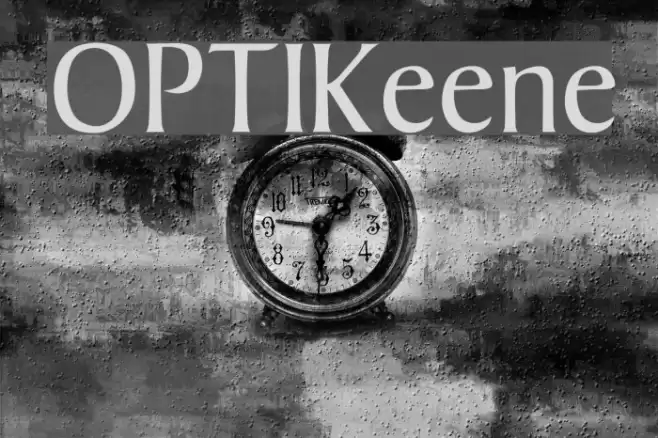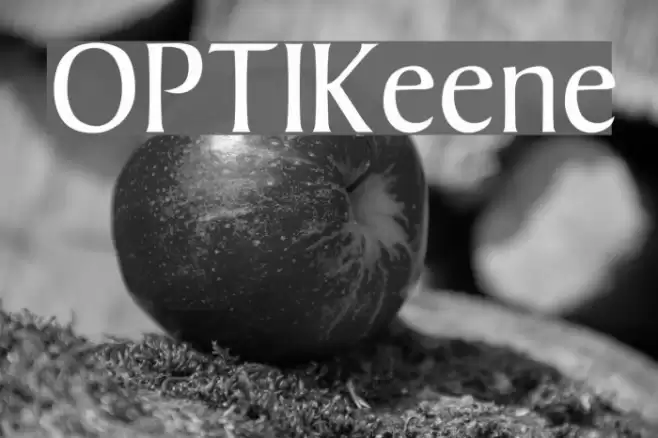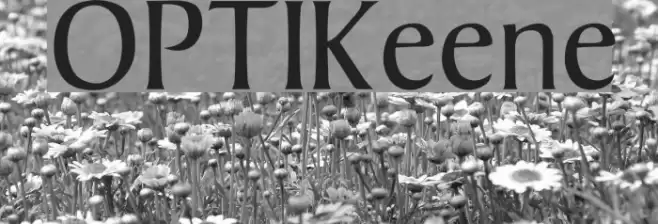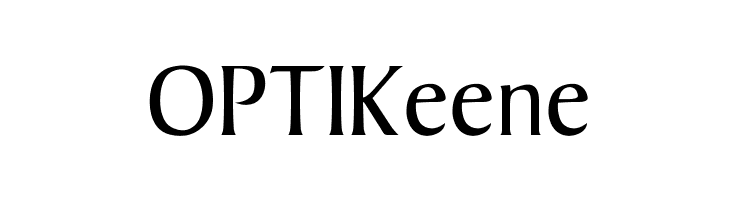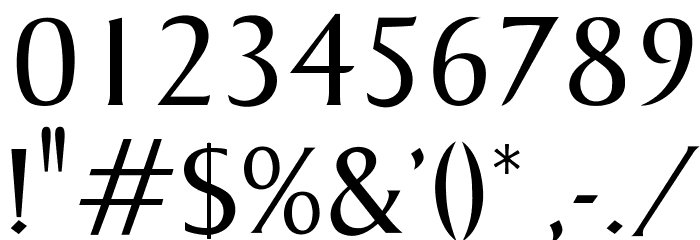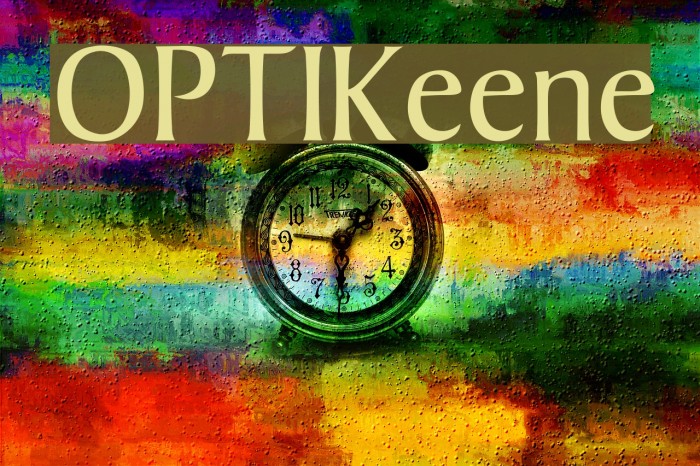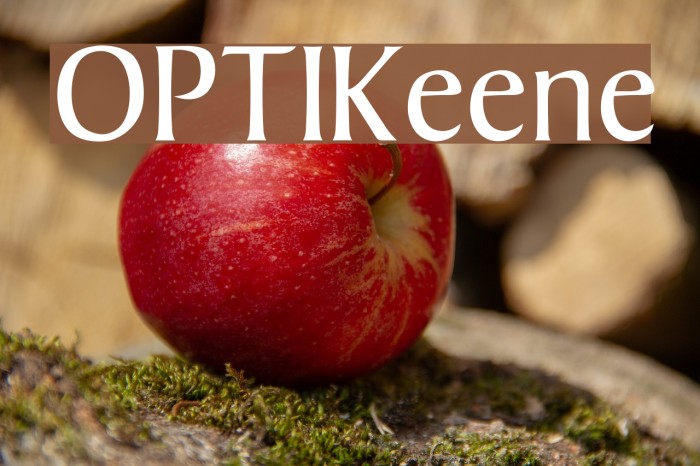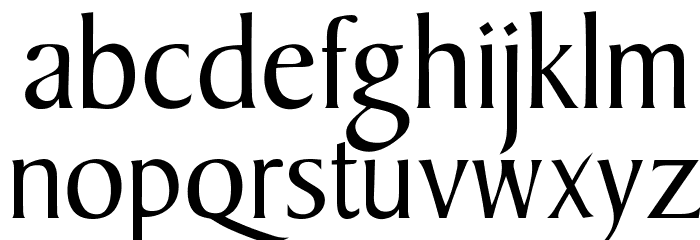
OPTIKeene Font
OPTIKeene Description
This font features a classic serif style with elegant and slightly curved strokes, giving it a sophisticated and timeless appearance. The uppercase letters are bold and commanding, while the lowercase letters maintain a graceful flow. The numerals are distinct and clear, making them suitable for various applications. The special characters are well-designed, complementing the overall aesthetic. This font's balance between tradition and modernity makes it versatile for numerous design projects.
A classic serif font with elegant curves and a timeless appearance from Uncategorized fonts.
- Proposed Projects: Ideal for book covers, editorial design, branding, and formal invitations.
- Overall Style: Classic